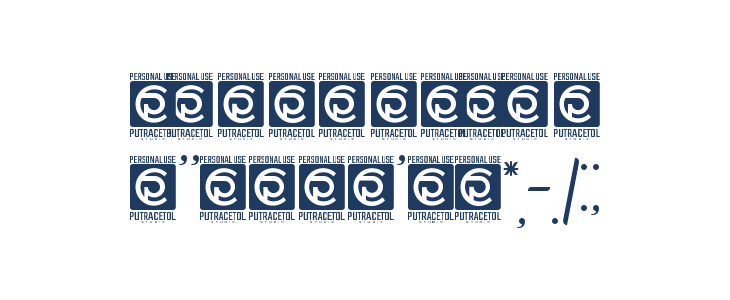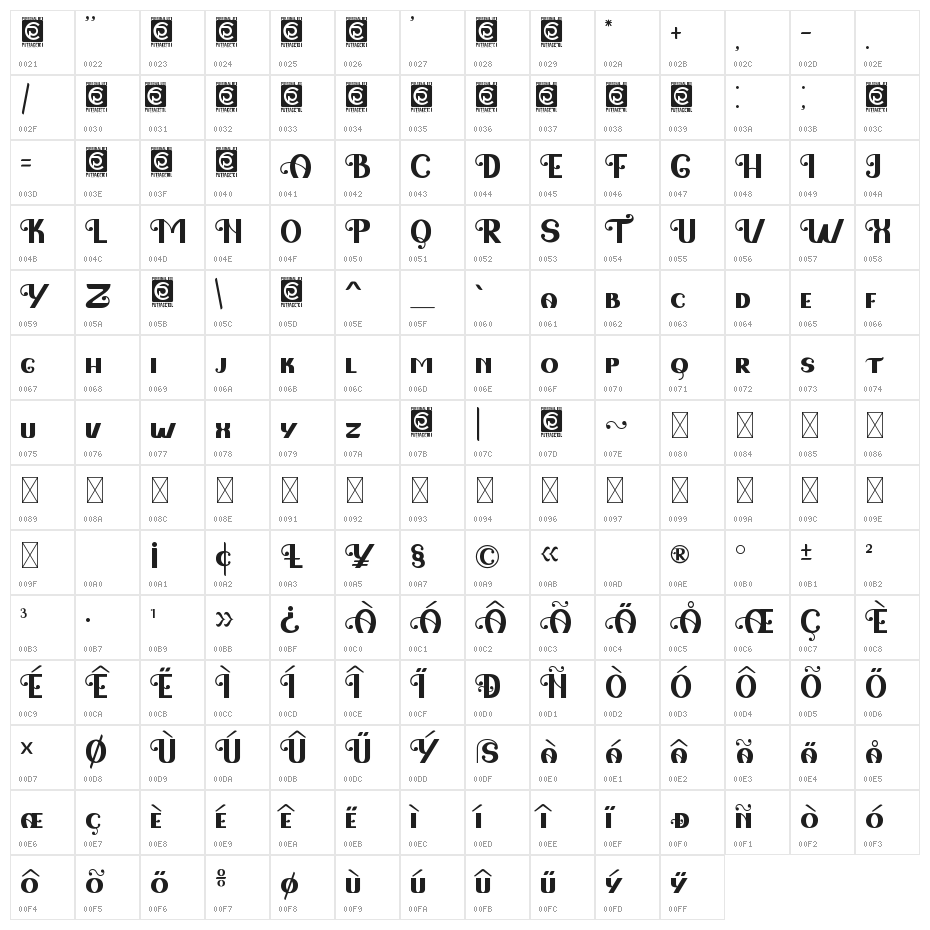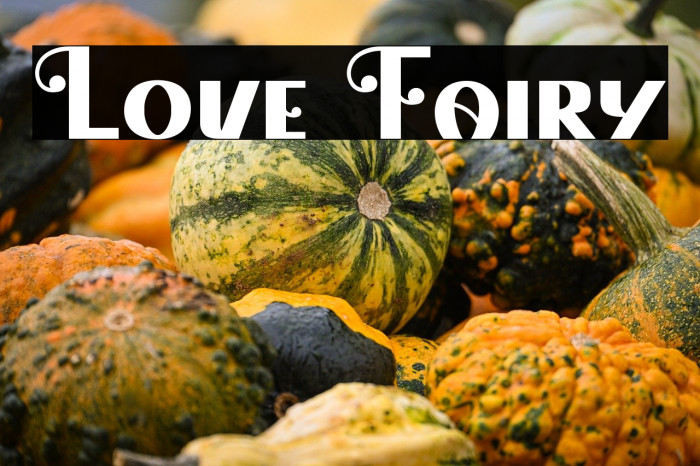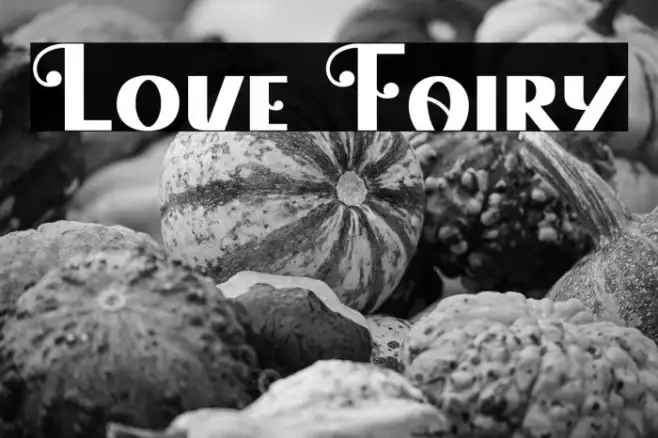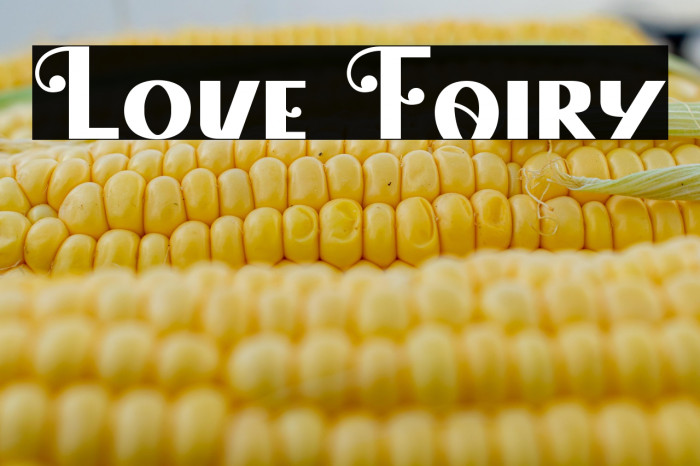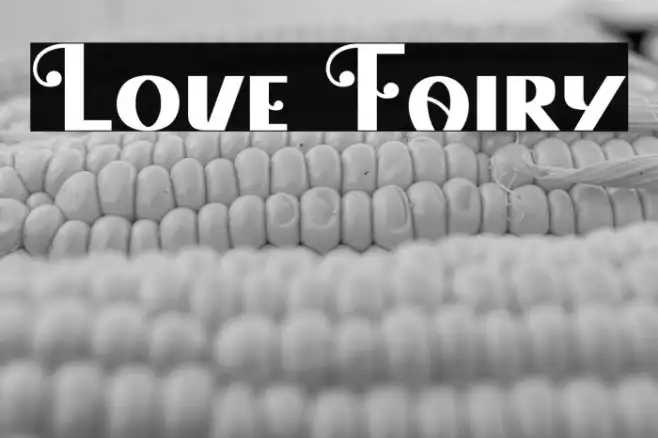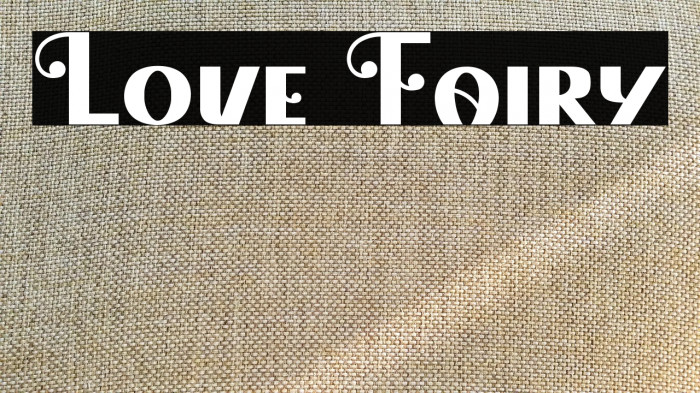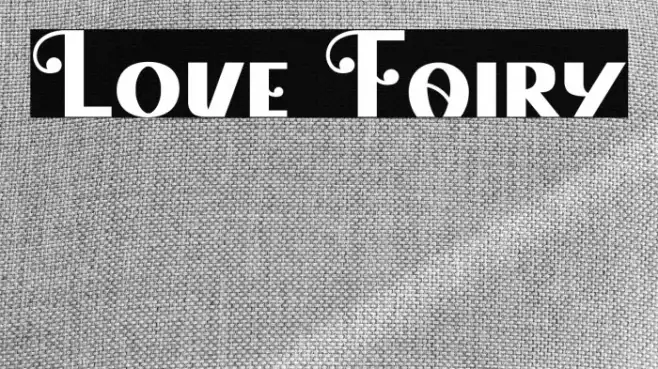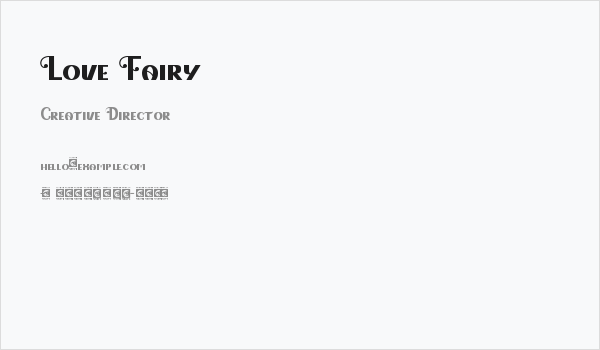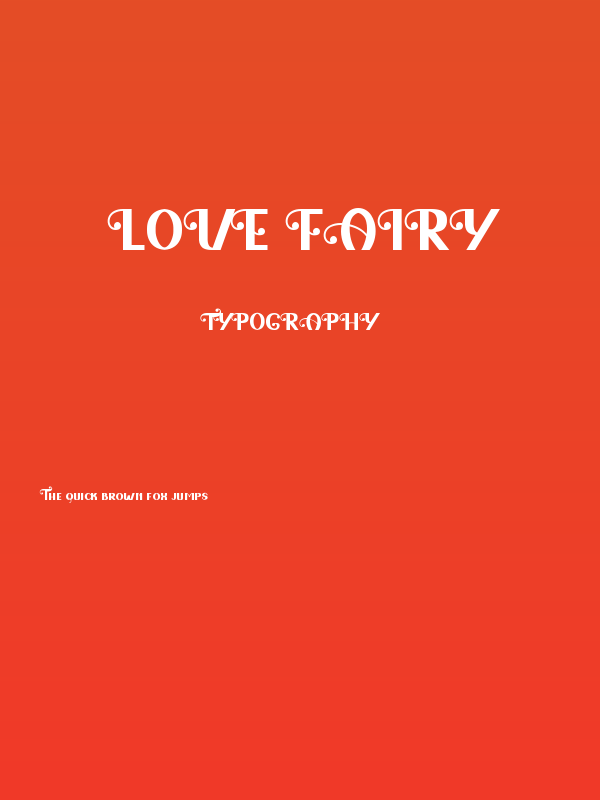
Love Fairy Font
Love Fairy Description
This font features a whimsical and decorative style with intricate curls and loops integrated into the letterforms. The uppercase letters exhibit a playful elegance, with each character incorporating unique embellishments that add a sense of charm and creativity. The lowercase letters maintain this decorative flair, ensuring consistency throughout the typeface. The numbers and special characters are designed to match the ornate style, making them suitable for creative and artistic projects. The overall appearance is bold and eye-catching, perfect for making a statement.
| Proposed Projects | Ideal for wedding invitations, greeting cards, branding for creative businesses, and decorative posters. |